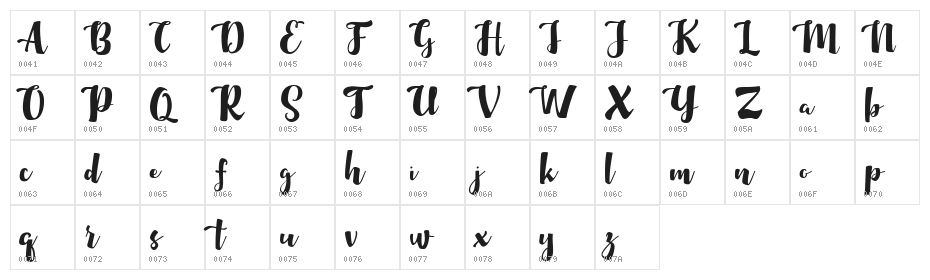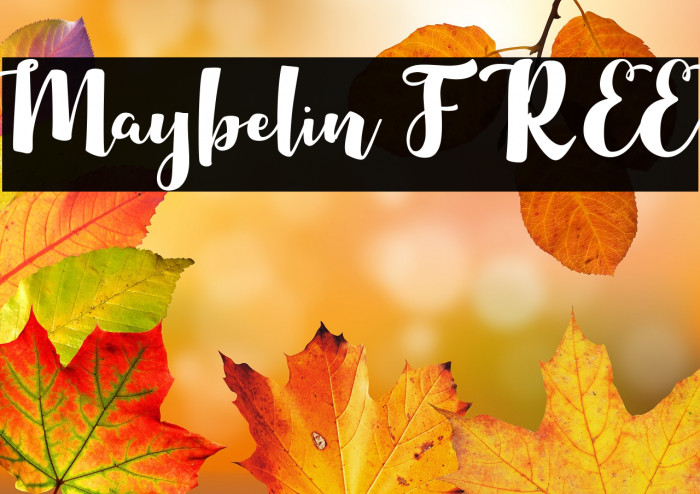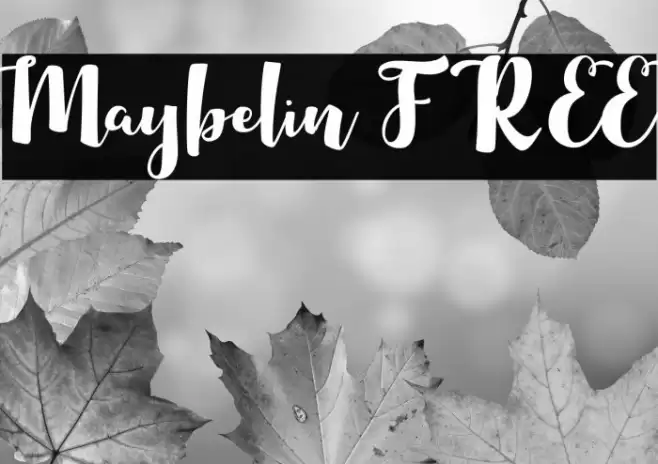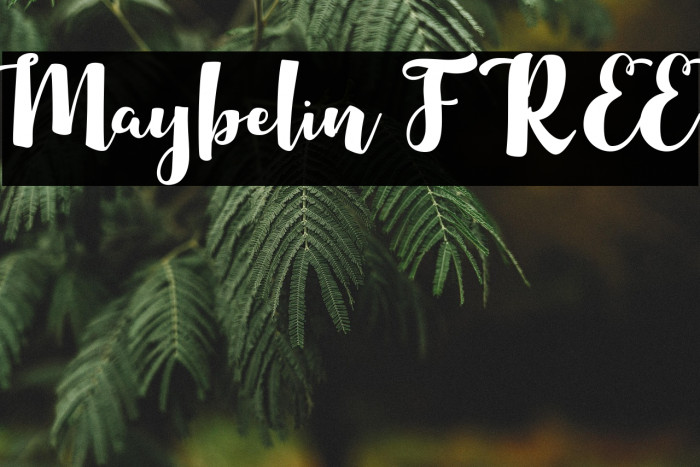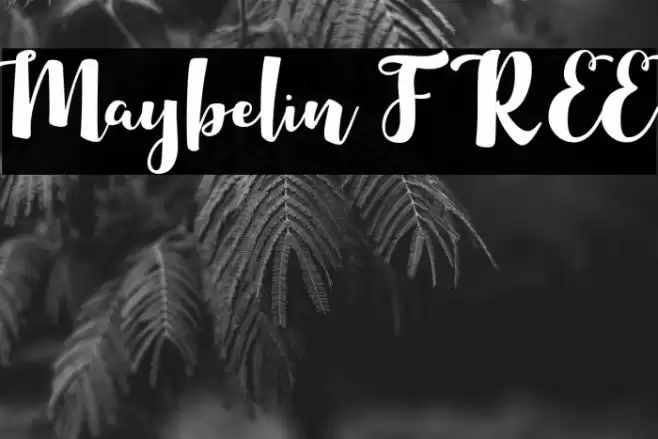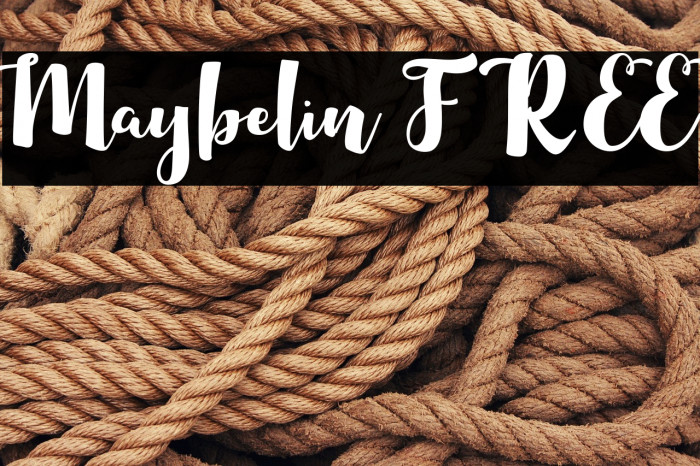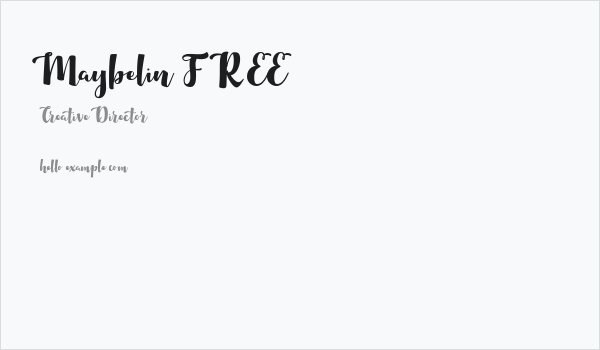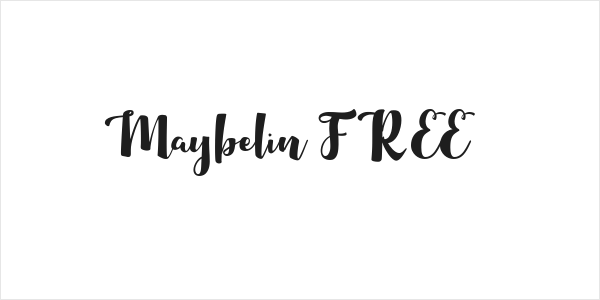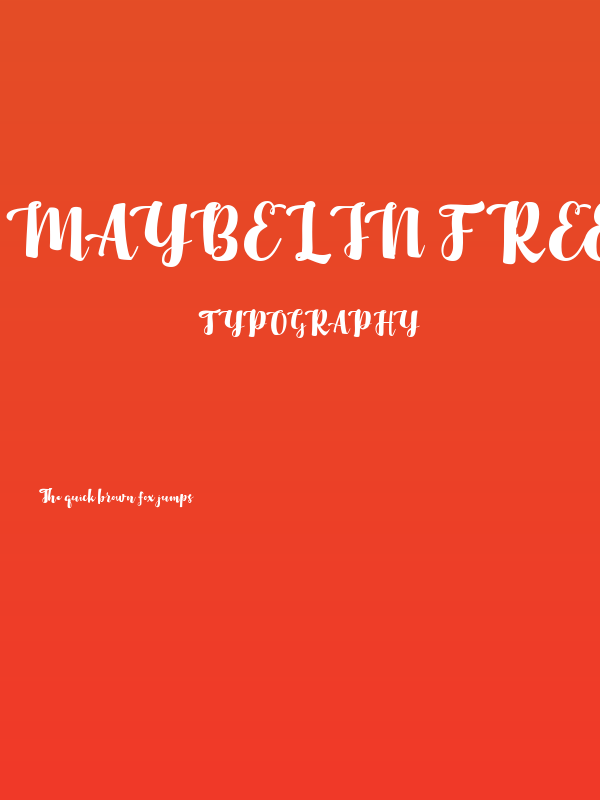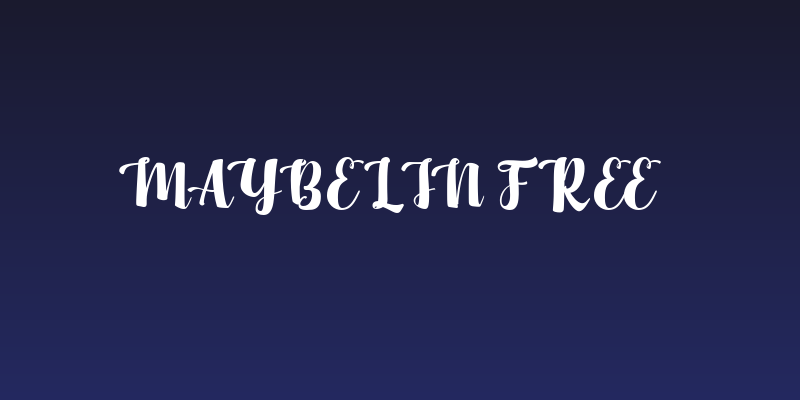
Maybelin FREE Font
Maybelin FREE Description
This font features a bold and expressive script style, characterized by its flowing, cursive letterforms. The uppercase letters are elegantly crafted with smooth curves and a consistent stroke width, giving them a harmonious and balanced appearance. The lowercase letters maintain the same fluidity, with some characters featuring distinctive loops and swashes that add a touch of flair. The overall design is both playful and sophisticated, making it suitable for a variety of creative applications. The font's bold weight ensures strong visibility, while its script nature adds a personal and artistic touch.
| Proposed Projects | Ideal for wedding invitations, greeting cards, branding projects, and logo design. |